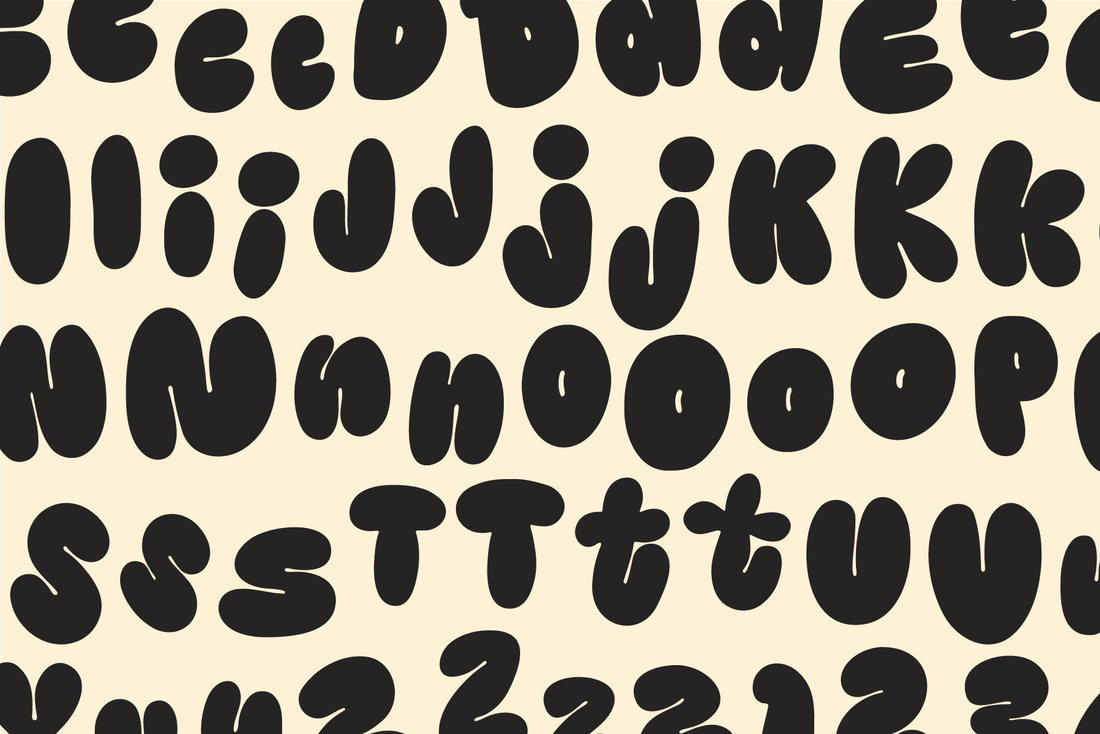
Best Bubble Fonts for Logo Design (And How to Pick the Right One)
Bubble fonts are having a moment, and for good reason. They're round, a little squishy, and impossible to ignore when you want a logo or headline that feels fun instead of formal. But "bubble font" is a pretty broad category, some are soft and clean, some are loud and textured, so the real question isn't which one is best. It's which one matches the feeling you're actually going for.
Not All Bubble Fonts Are the Same Font
It's easy to lump every rounded, chunky letterform into one bucket, but once you put a few bubble fonts side by side, they read pretty differently depending on texture and how the letters were drawn. Smooth, evenly rounded shapes feel soft and friendly. Rougher edges, ink blobs, a wobblier baseline, feel more textured and nostalgic, closer to a Y2K scribble than a clean bubble letter. Neither is more "right," it depends on the mood you're building.
None of that makes one version more "correct" than another. A soft bubble font might be exactly right for a bakery logo and completely wrong for a streetwear drop, or vice versa. It depends on the brand, and how they want to be seen and felt.
One practical thing worth keeping in mind: bubble fonts are almost always a display choice, not a body text choice. They're made to be read at a glance in a logo, a title, or a quote graphic, not set small across multiple lines.
What Feeling Are You Going For?
Y2K, nostalgic, textured
If you want that early-2000s bubble letter energy, thick outlines, playful texture, a bit of nostalgia baked in, Goops and Goops Outlines are built for exactly that. It comes in a regular and bouncy style, so there's room to dial the wobble up or down depending on how loud you want it to feel.
Bold, unmistakable, playful
If the brand is more playful than polished, or somewhere in the middle, Puffie is a mix of smooth lines and odd distinctive shapes made to stand out.
Classic, bouncy, a bit odd
When the goal is a wordmark that feels handmade and a little larger than life, Kooky Cloud leans into a mix of classic but uniquely rounded shapes and hand drawn edges to give every word its own lively, unmistakable energy.
Bubble Fonts Worth Looking At
Puffie A hand-lettered bubble font made for bold, playful, one-of-a-kind designs. The rounded shapes and unique edges give every word a lively, handmade energy that works well for logos, quotes, posters, and packaging, basically anywhere you want a little extra joy in the type itself.
Goops A Y2K-inspired handwritten bubble font that comes in two styles, regular and bouncy, mixing texture and a genuinely "goopy" quality into something wonderfully imperfect and unique. It's playful and textured on purpose, so it's a better fit for branding with a nostalgic edge than for something clean and understated. It also has an outline companion, Goops Outlines, which uses the same bubble concept in outline form.
Kooky Cloud A hand-lettered font made for "optimum kookiness," oddly bubbly and playful, with alternate letterforms built in for extra character. It's a strong pick for logos, quotes, signs, and titles where the brand personality is meant to feel a little unconventional rather than buttoned-up.
Dottie A bubbly hand-lettered font inspired by lots of inky dots, with a quirky vibe that manages to feel both stylish and laid-back at the same time. Every letter is drawn individually, so it carries that imperfect, handmade touch rather than looking like a uniform, mass-produced bubble typeface, and it includes alternates if you want to customize specific words.
Bottom Line
There's no single "best" bubble font, just the one that matches what you're actually trying to say with a brand or a design. If you want nostalgic and textured, Goops is worth a look. If you want something bold, modern, and distinctive, Puffie is built for that. And if the brand is meant to feel a little odd and unconventional rather than polished, Kooky Cloud or Dottie are both worth trying out. Simply put, pick the font that feels right when you look at it.